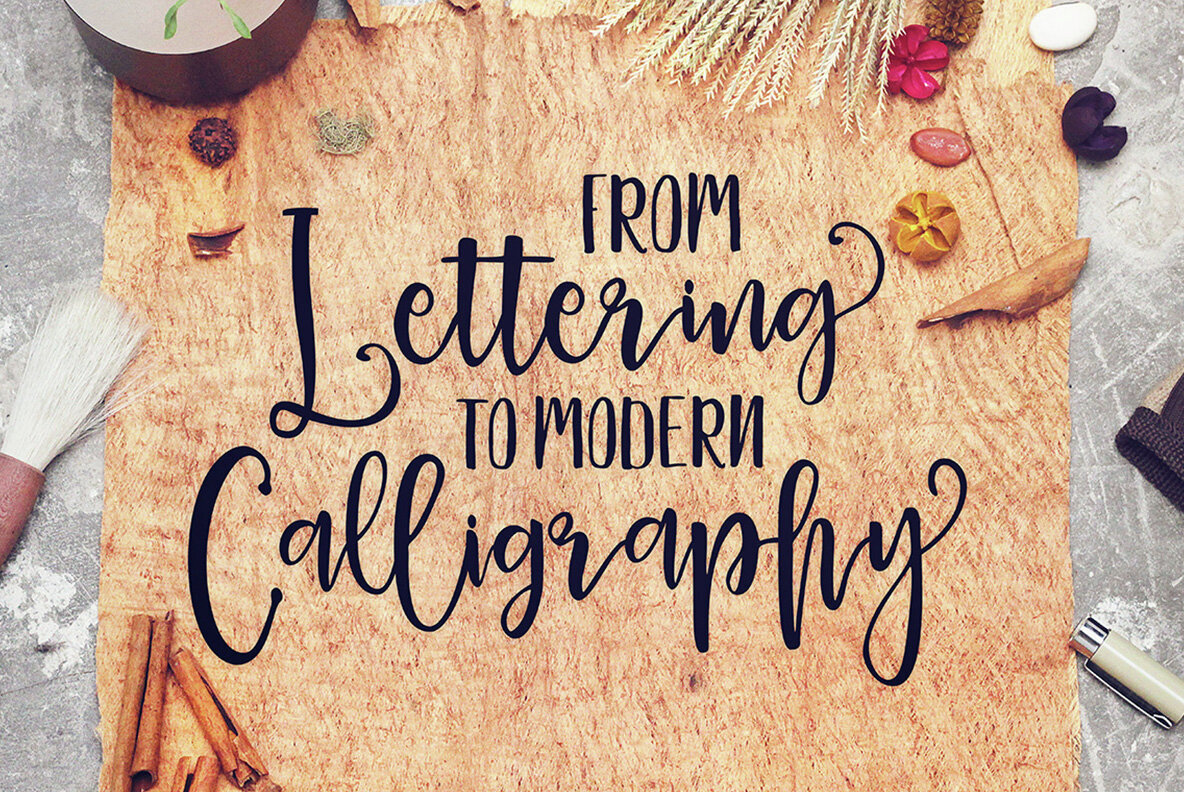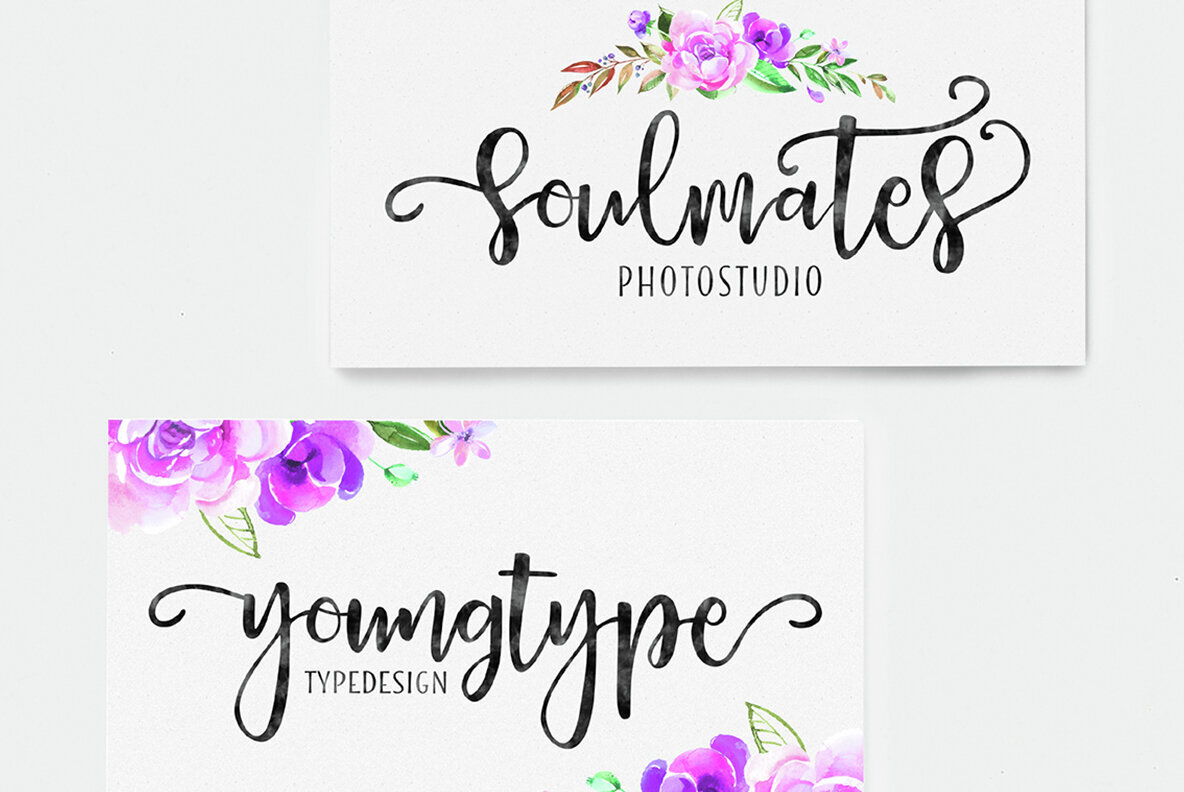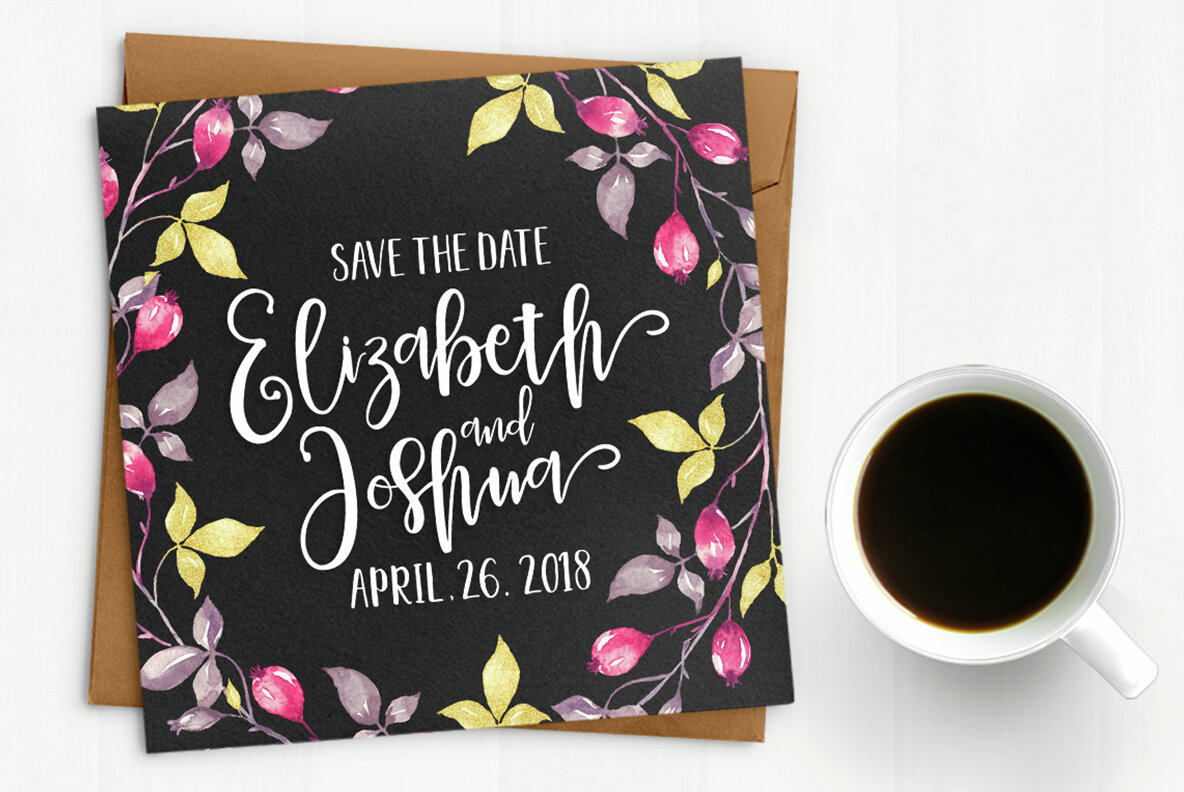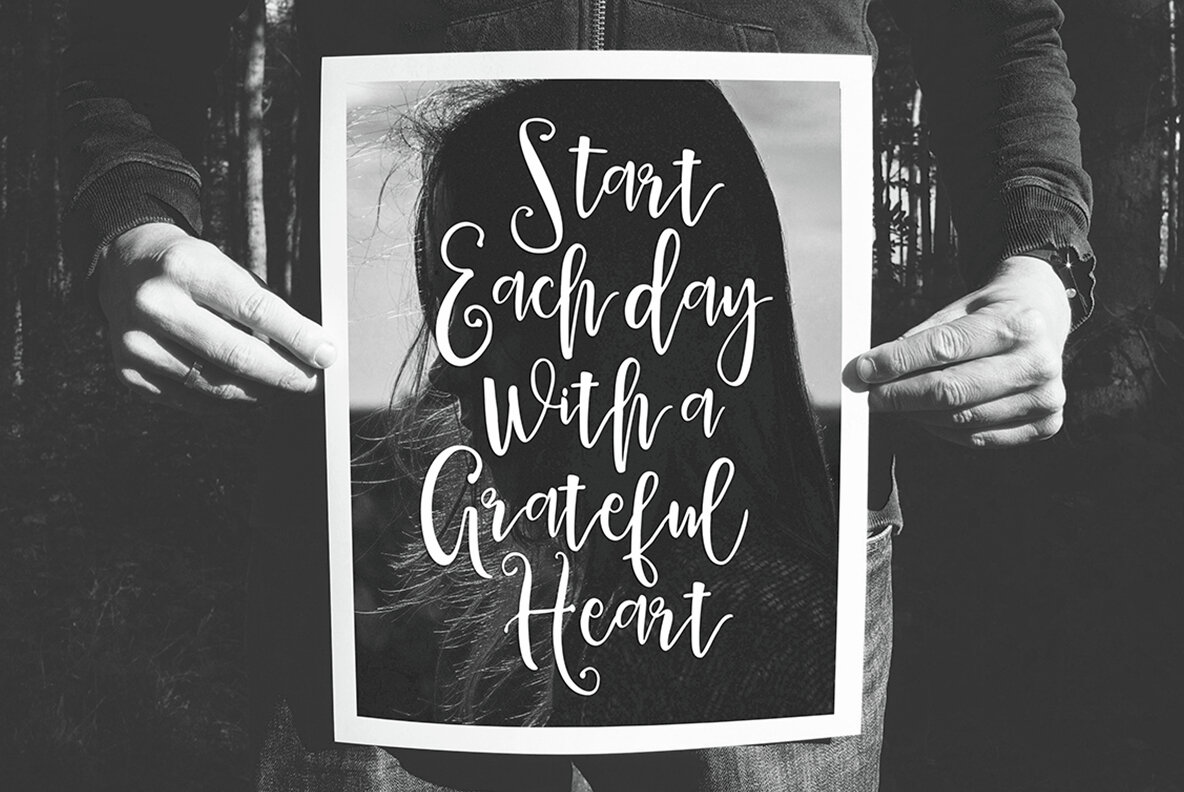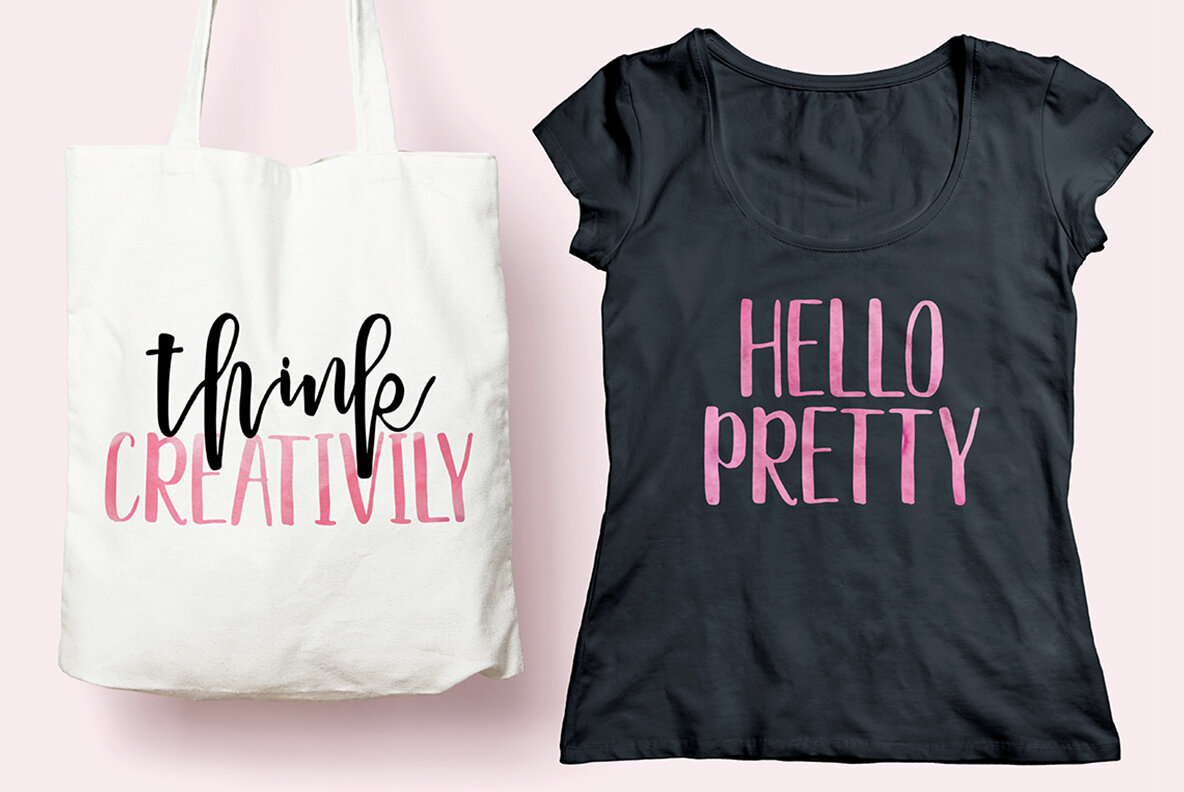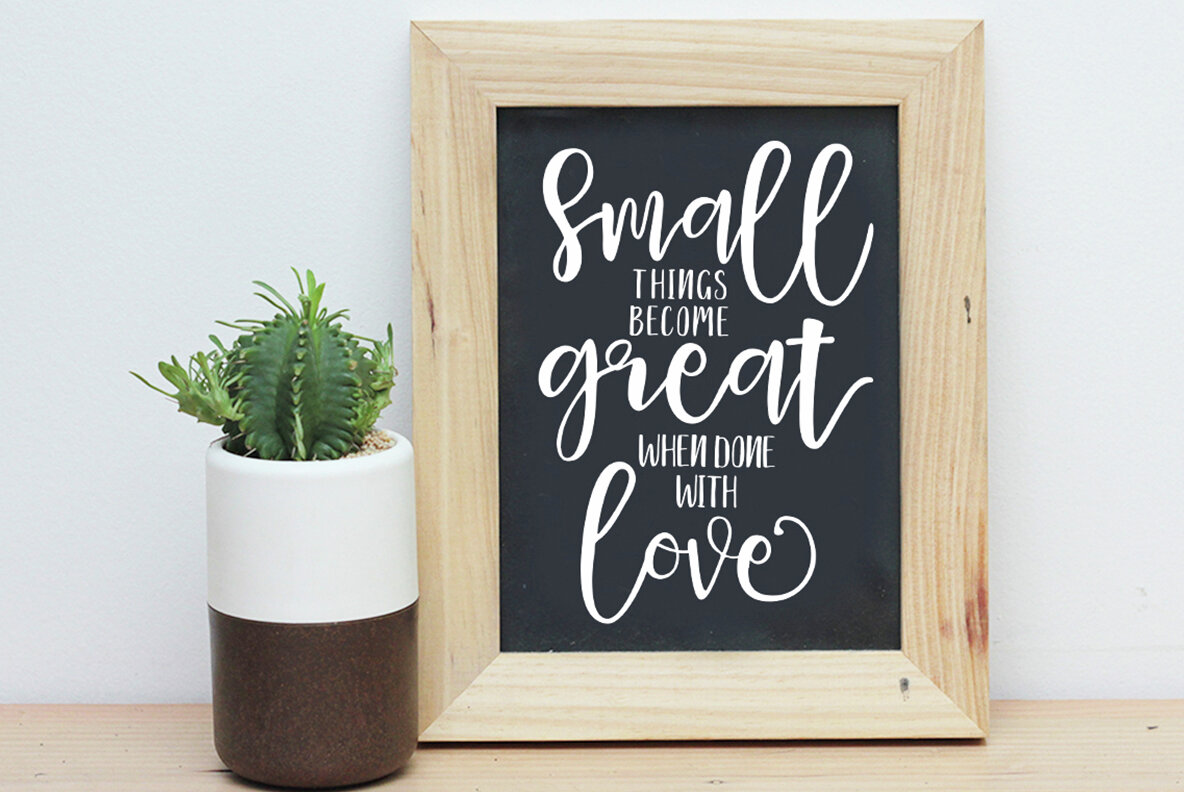
Delaney Font
Delaney Font Duo combines the expressive Delaney script with a complementary sans serif counterpart, creating a cohesive typography experience. The script is crafted with brush and ink, featuring a bold and irregular baseline for added character. It includes a full range of lowercase and uppercase letters, alternates, ligatures, punctuation, numbers, and multilingual support. The sans version complements the script, allowing for versatile design applications across various projects.
This duo is perfect for watercolor designs and bold, hand-lettered styles. It works seamlessly for creating blog headers, posters, wedding elements, t-shirts, book covers, business and greeting cards, branding, merchandise, and handmade quotes. Whether you're crafting a new brand or designing unique invitations, Delaney Font Duo offers the flexibility and style to meet your creative needs.